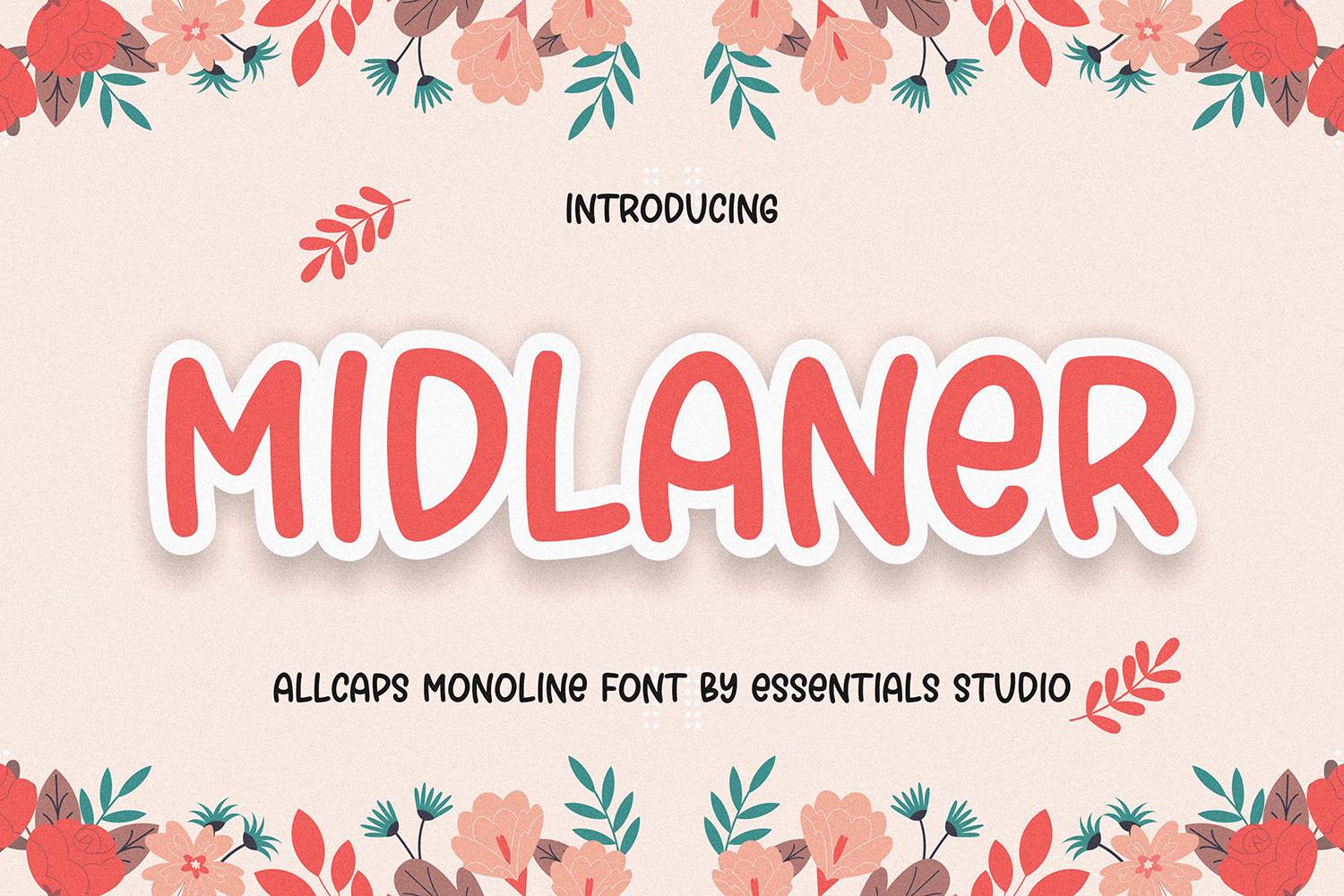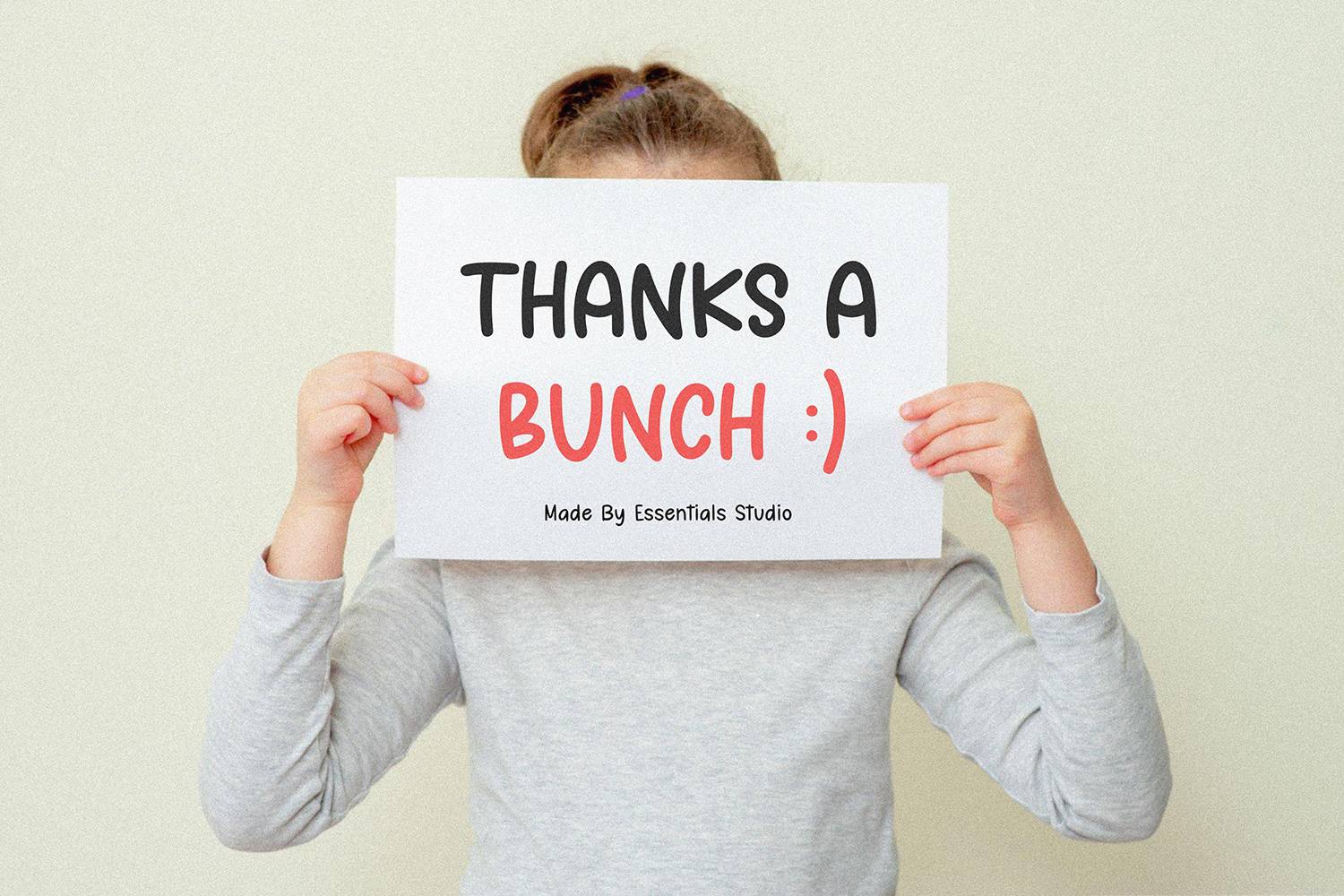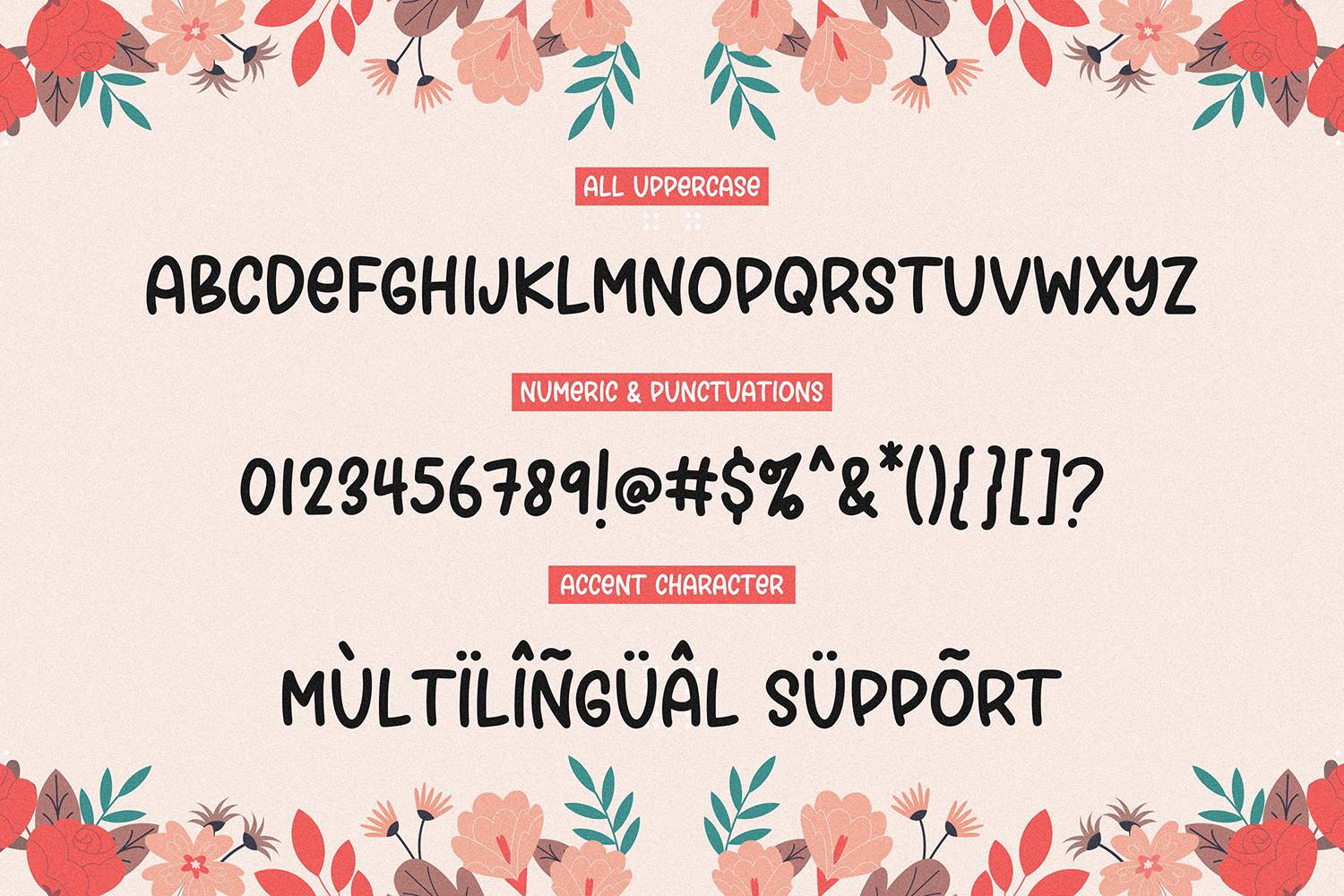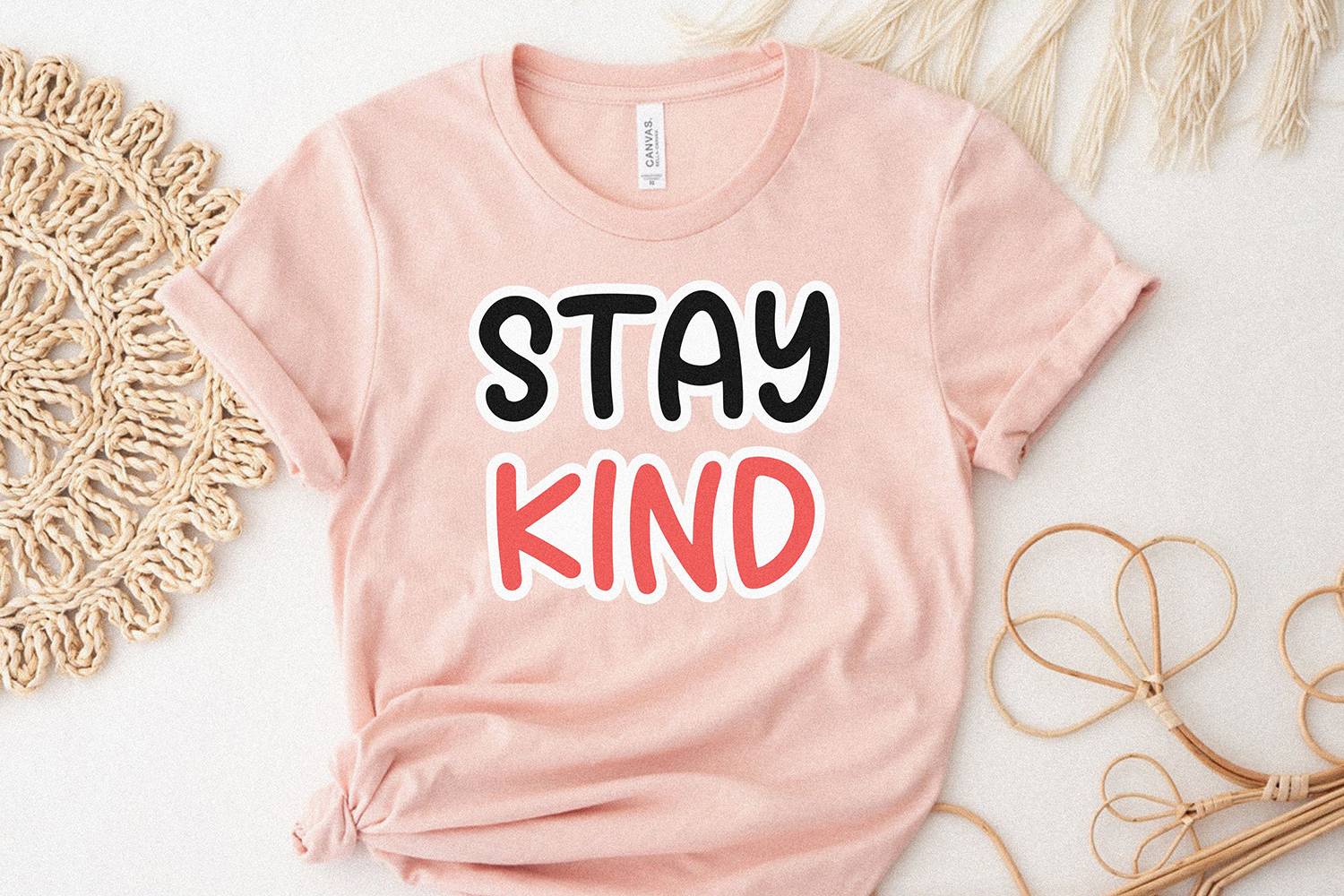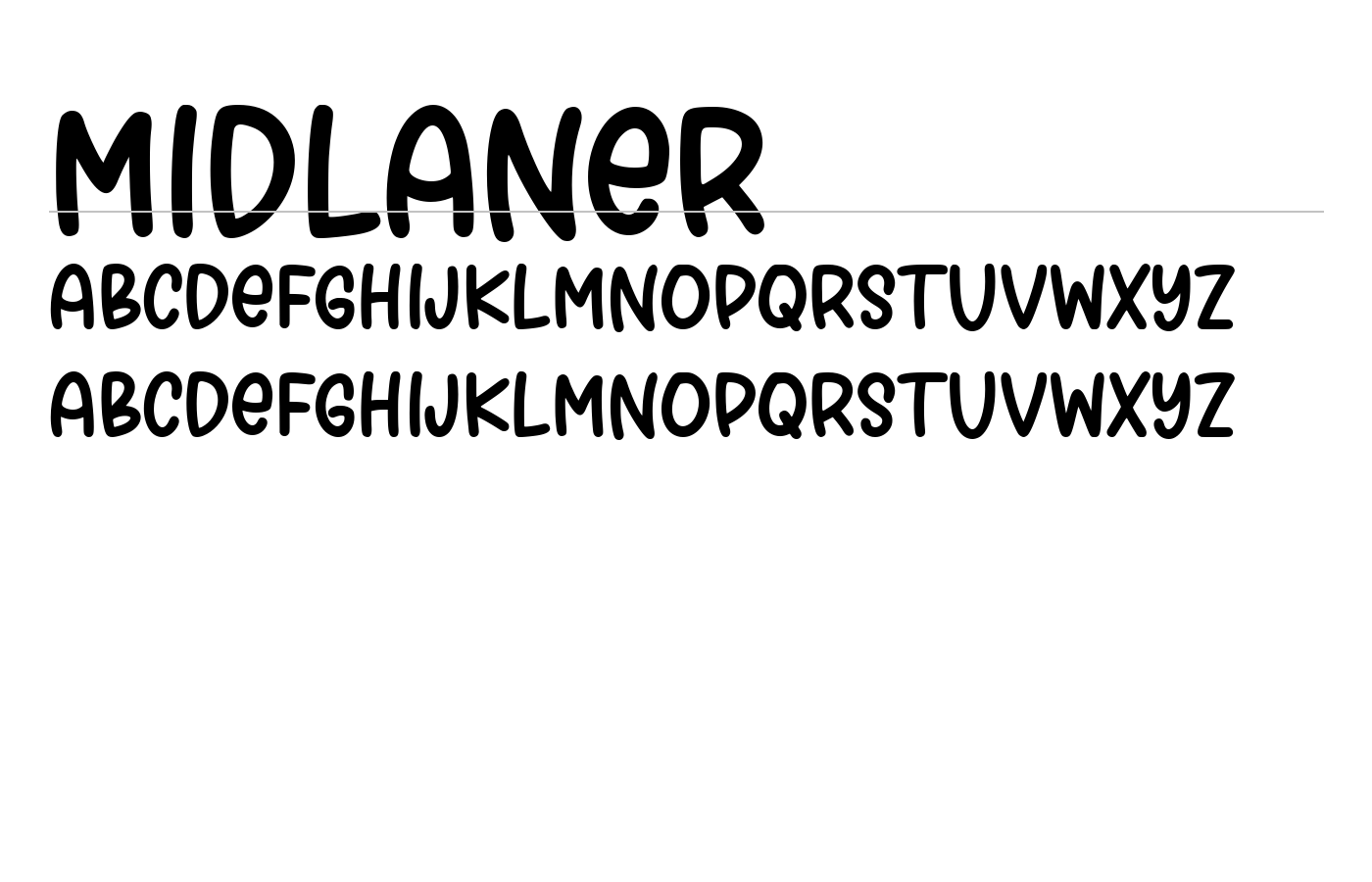
Midlaner is a playful, rounded sans serif font with a friendly, hand-drawn feel. Its thick, uniform strokes and slightly irregular letterforms create a casual, approachable vibe, making it ideal for informal branding, children’s materials, and creative projects that aim to feel personal and fun. This font works well in headlines and logos where a warm, inviting presence is desired.
Midlaner Font
About Midlaner Font